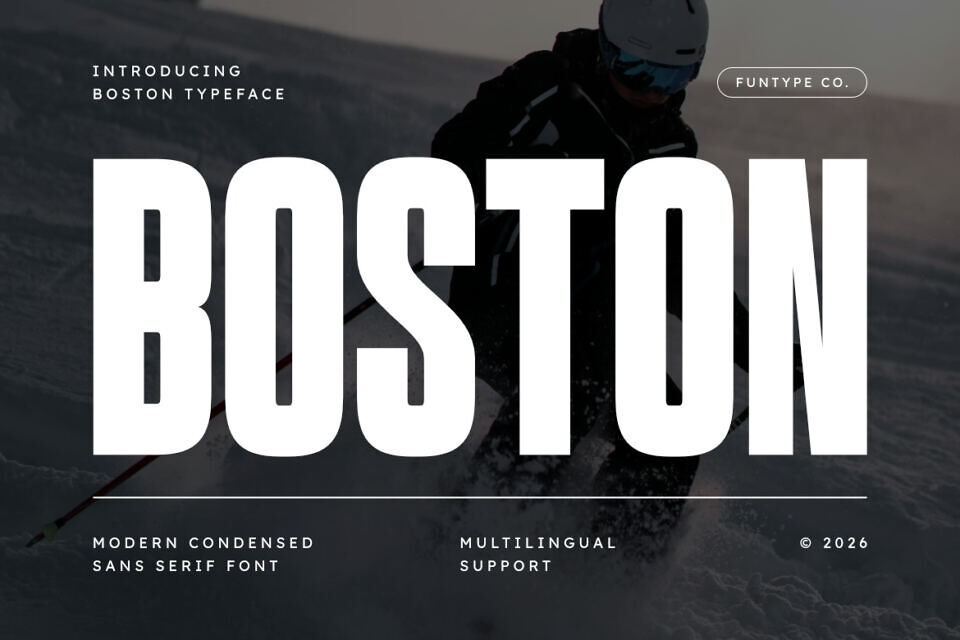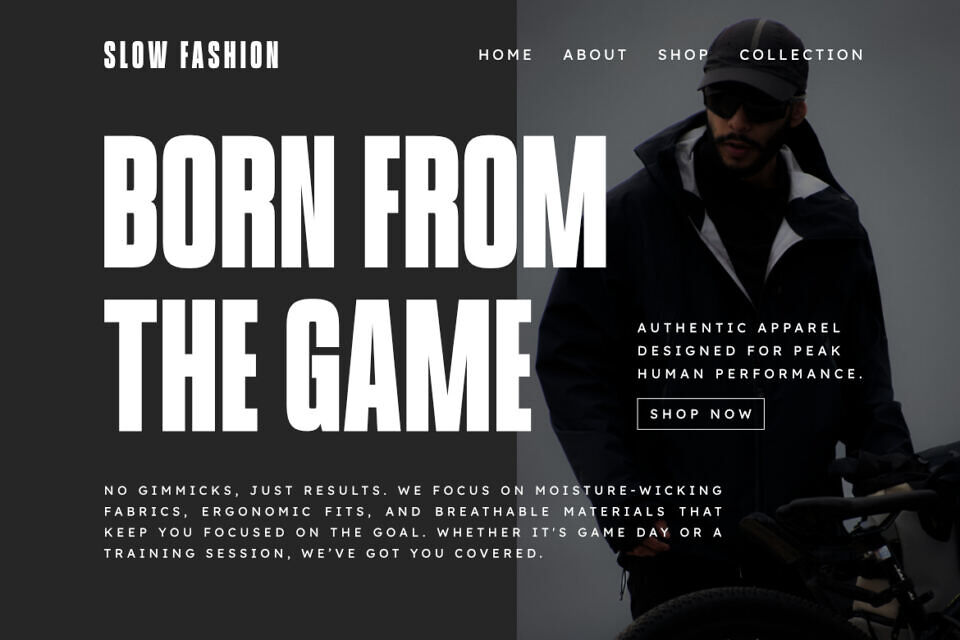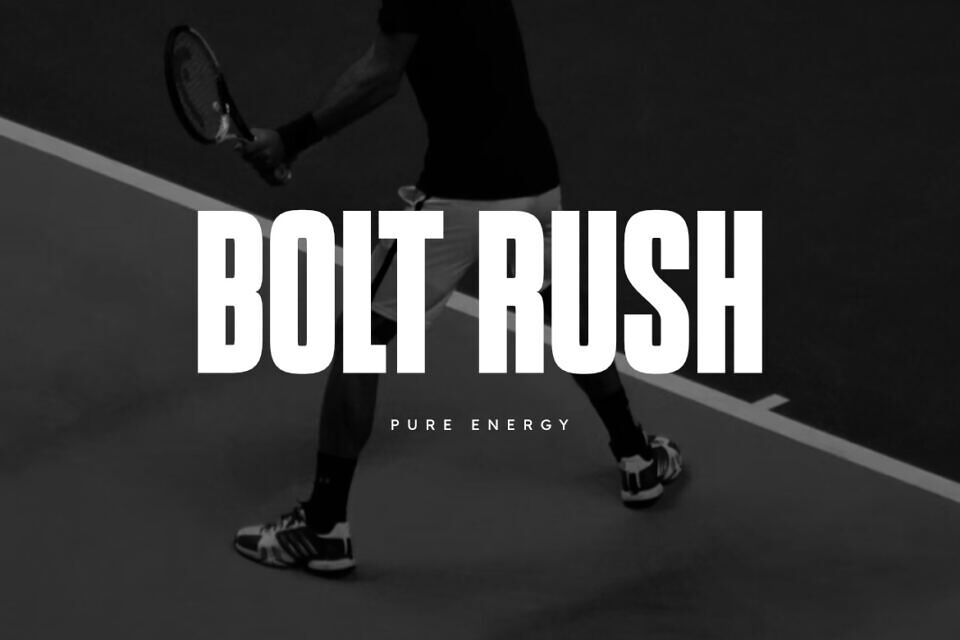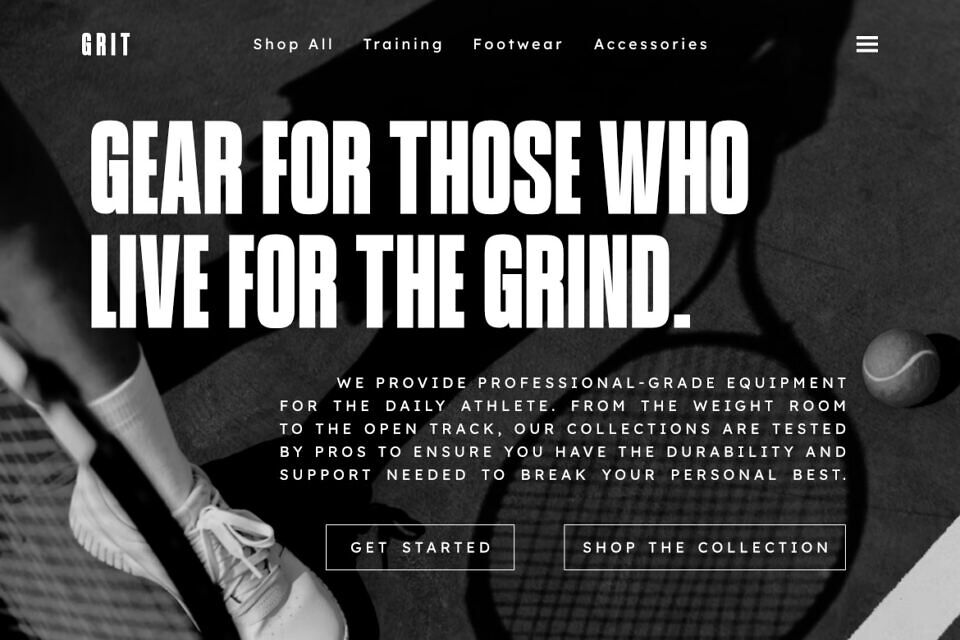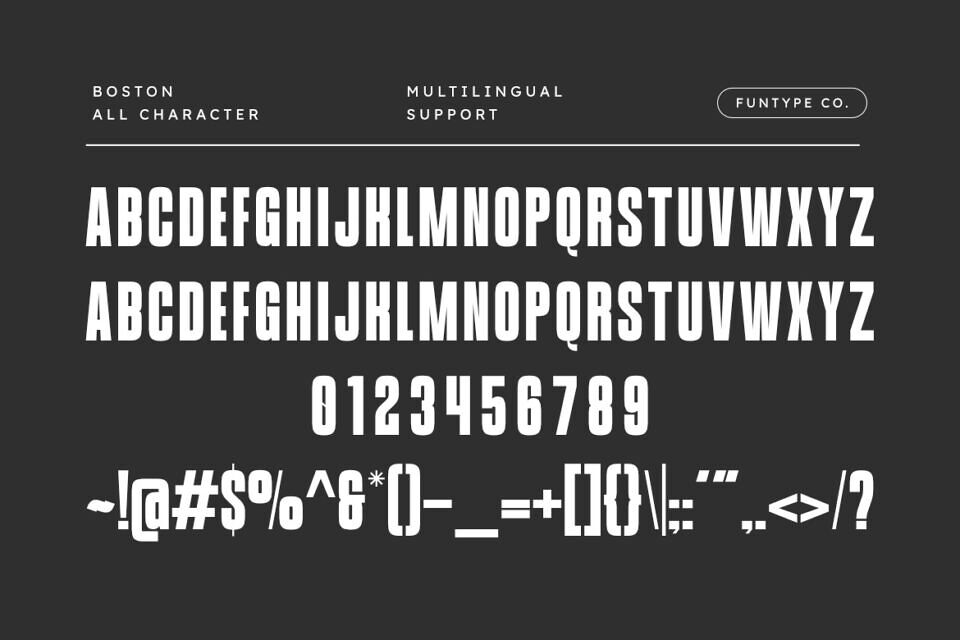
Bostone Font
Boston is a bold and powerful modern condensed sans serif font designed for high-impact and precise typography. With its refined vertical structure and clean, solid lines, this font is perfect for strong headlines, professional sports logos, industrial branding, and high-impact digital posters. Its confident and balanced design gives your visuals a striking, professional, and advanced look.